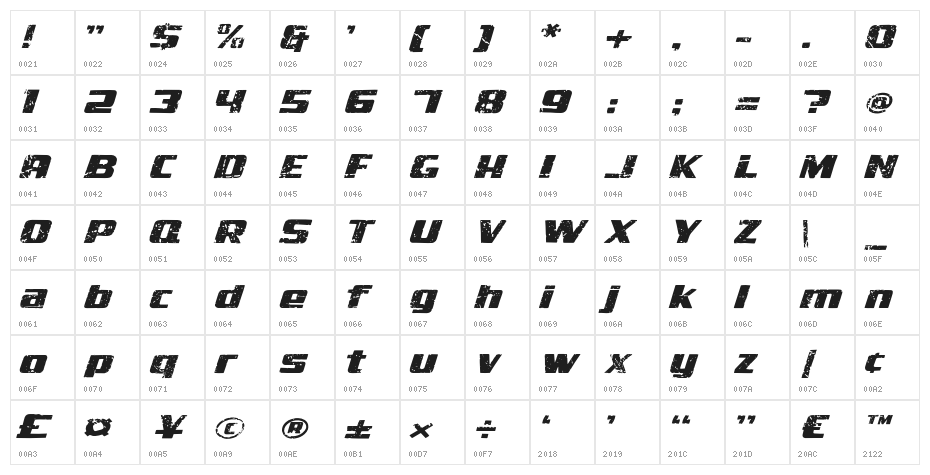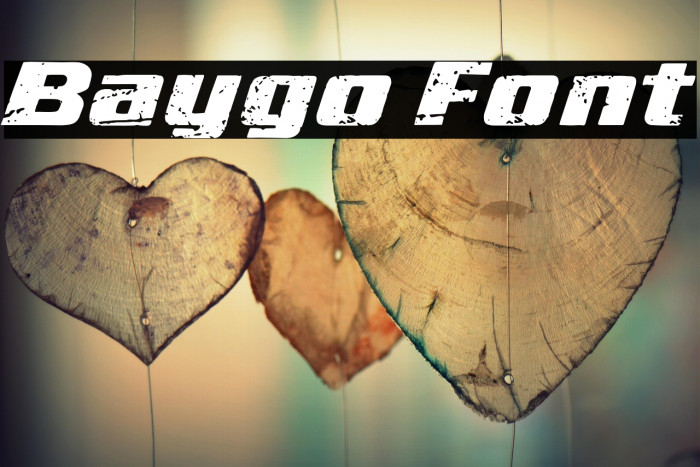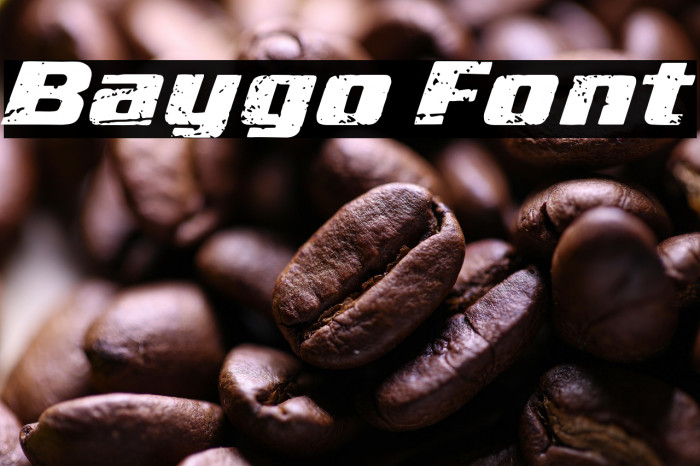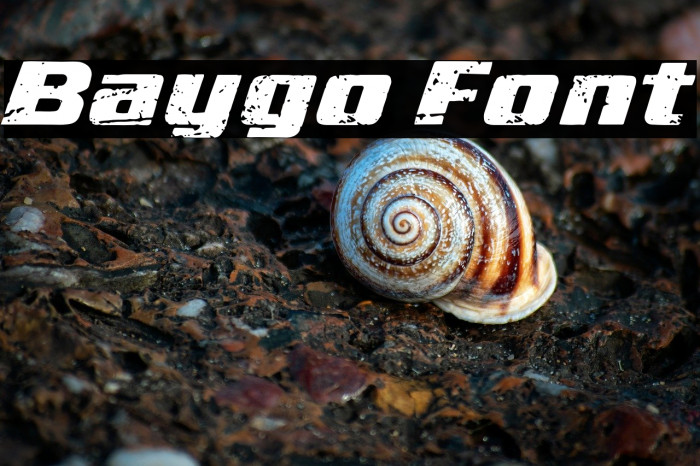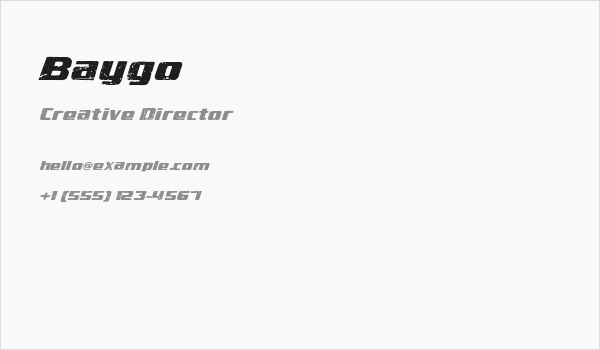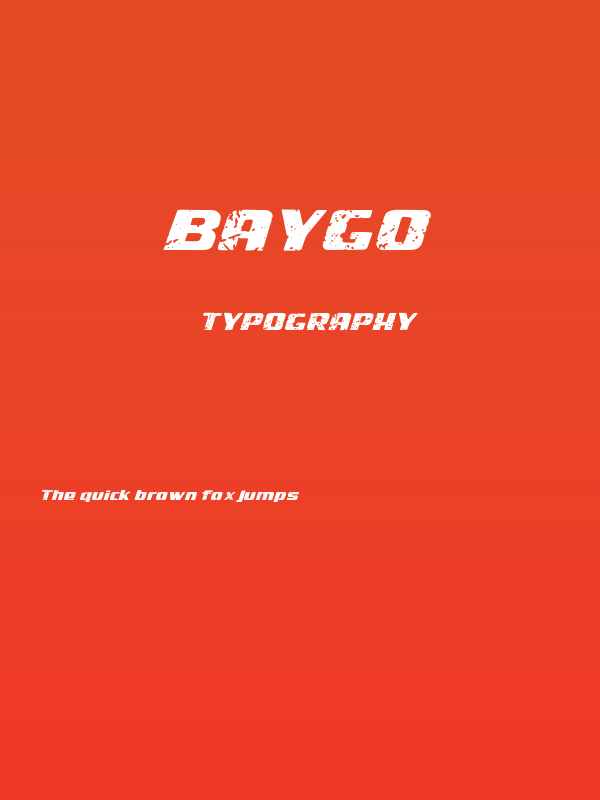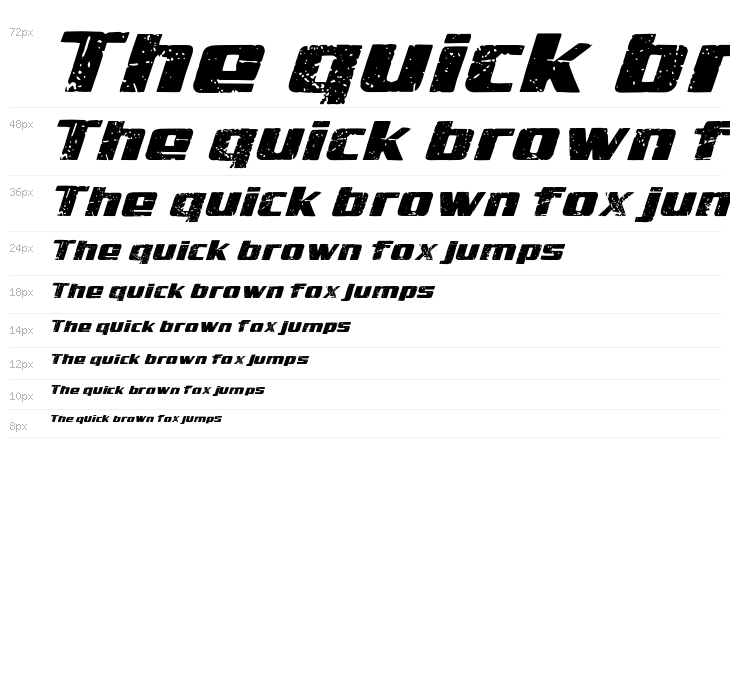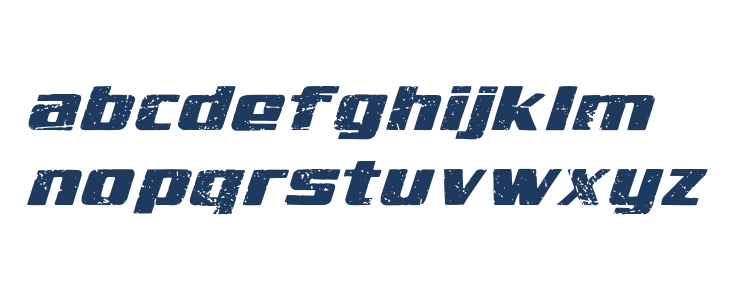
Baygo Font
This font features a bold and distressed style, giving it a rugged and worn appearance. The characters are slightly slanted, adding a dynamic and energetic feel. The distressed texture is consistent across all characters, creating a cohesive look that suggests a vintage or grunge aesthetic. The uppercase and lowercase letters maintain a uniform width, while the numbers and special characters follow the same design principles, ensuring versatility in various applications. The font's boldness and unique texture make it stand out, ideal for projects that require a strong visual impact.
| Overall Style | Vintage |
| Proposed Projects | Ideal for posters, album covers, branding for edgy or alternative products, and any design requiring a strong, impactful aesthetic. |